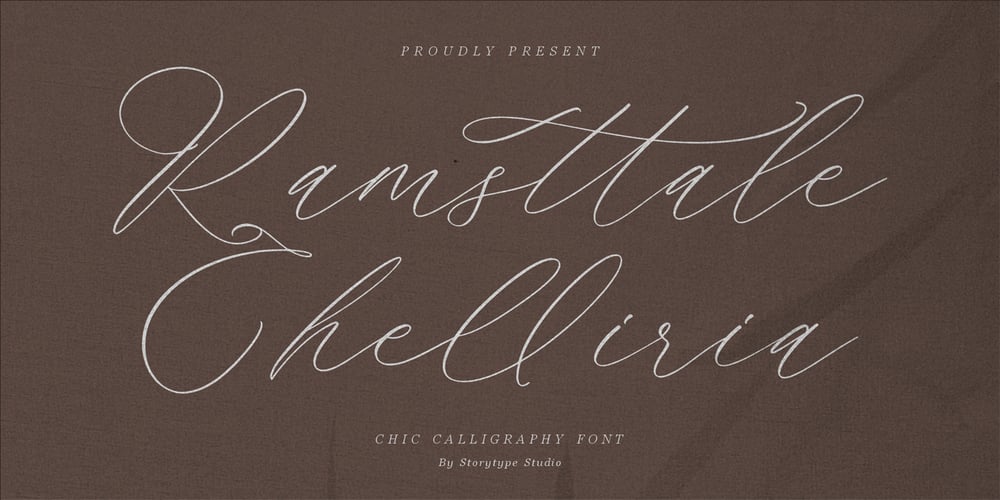
Ramsttale Chelliria Font Family was designed by Heru Utama Putra and published by Letterena Studios. Ramsttale Chelliria contains 2 styles and family package options. Ramsttale is a chic, unique, and modern handwritten font perfect for elegant and luxury logos, book or movie title designs, fashion brands, magazines, clothes, lettering, quotes, and so much more.This font is PUA encoded, which means you can access all of the glyphs and swashes with ease!